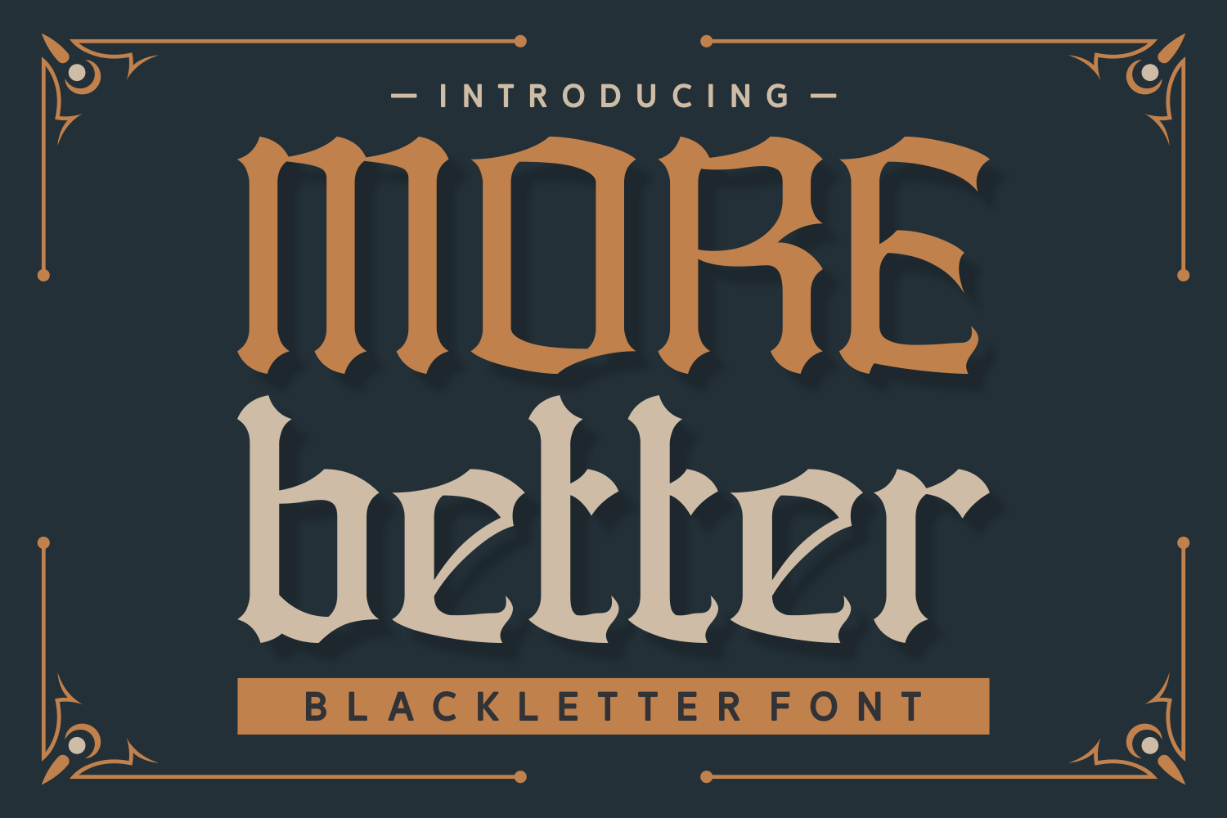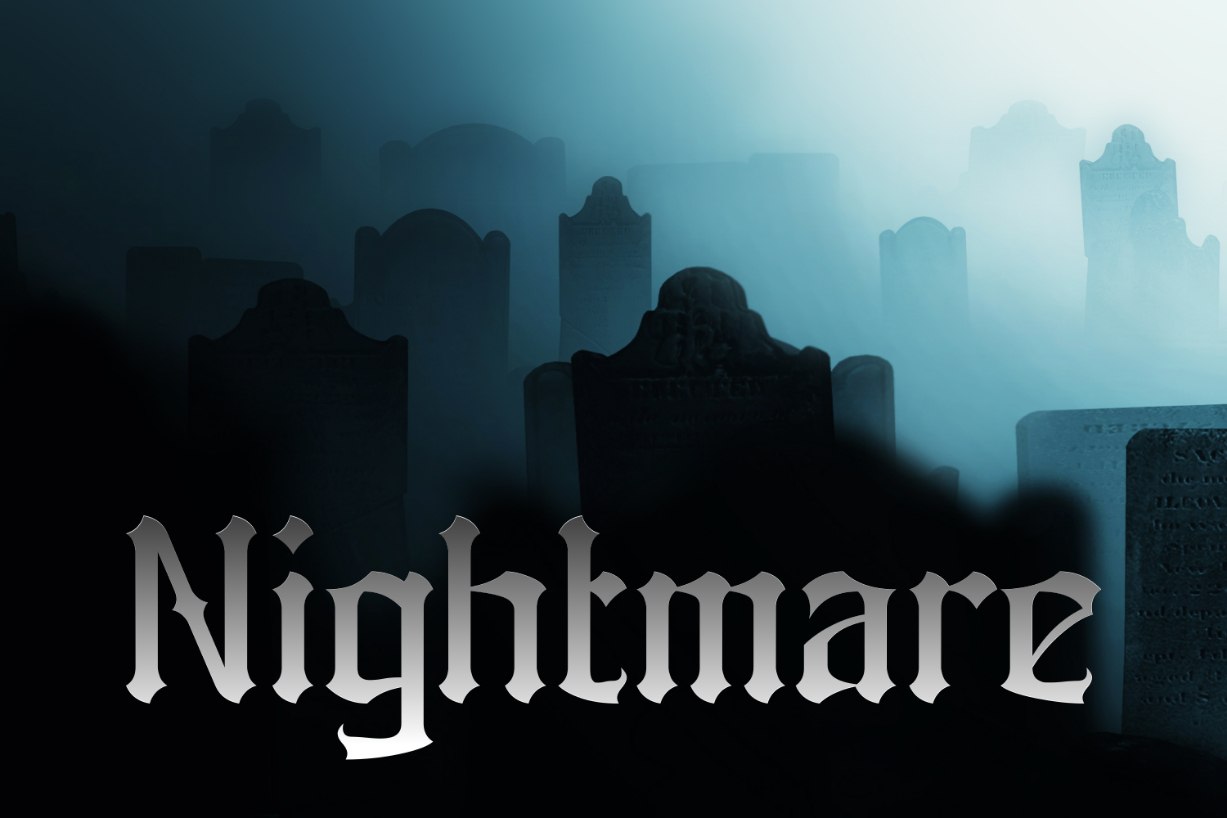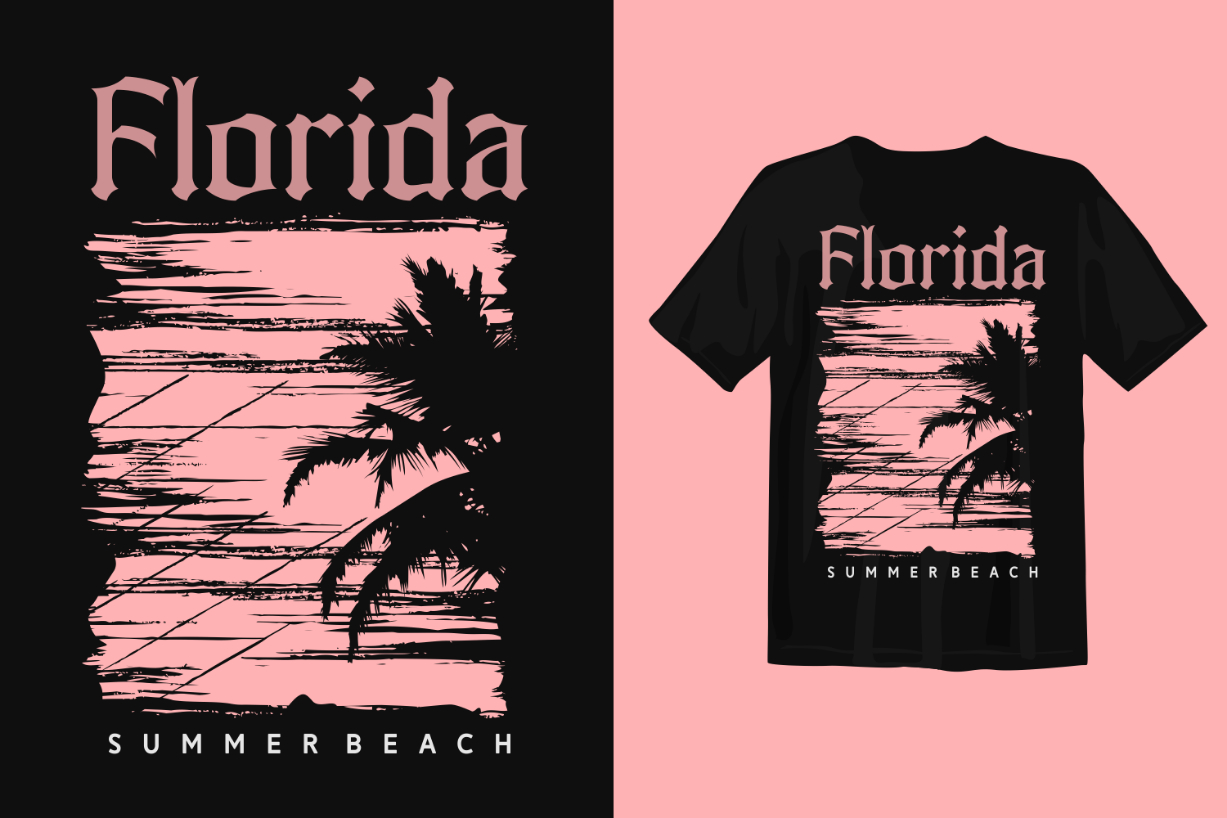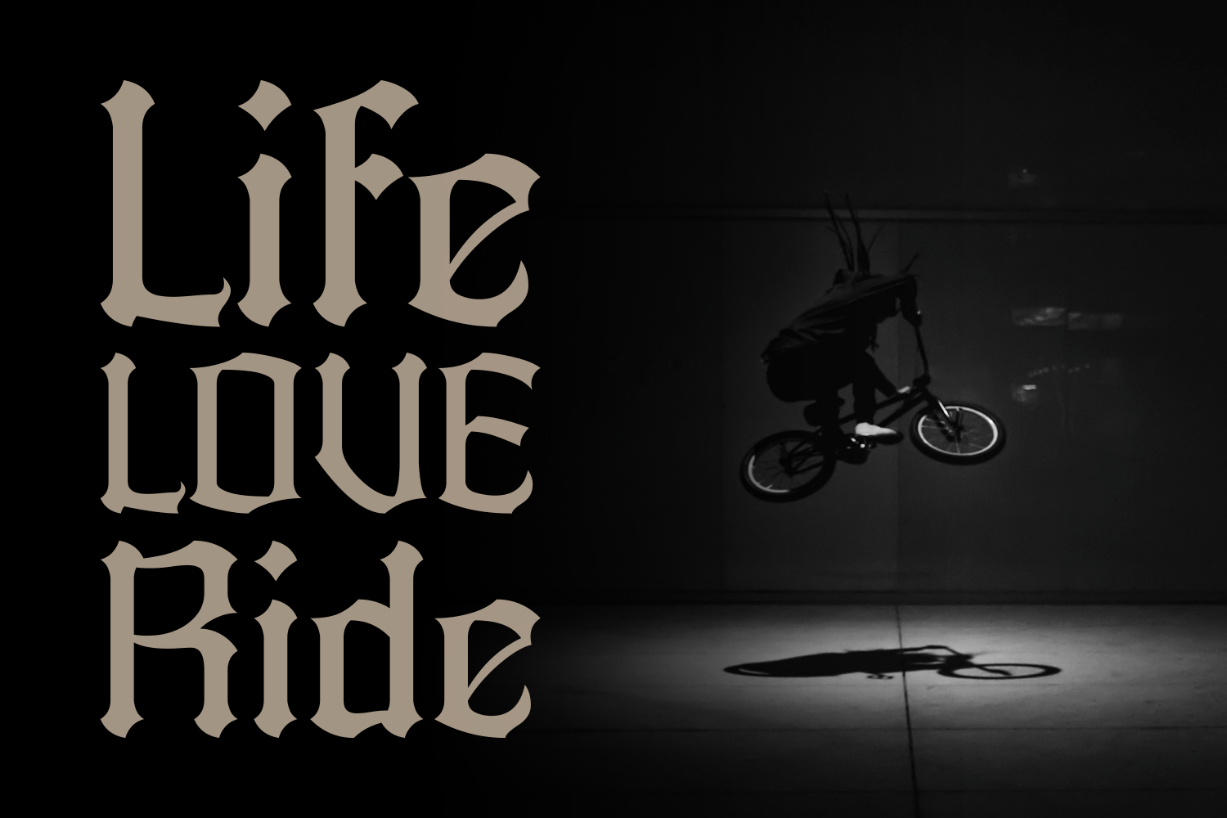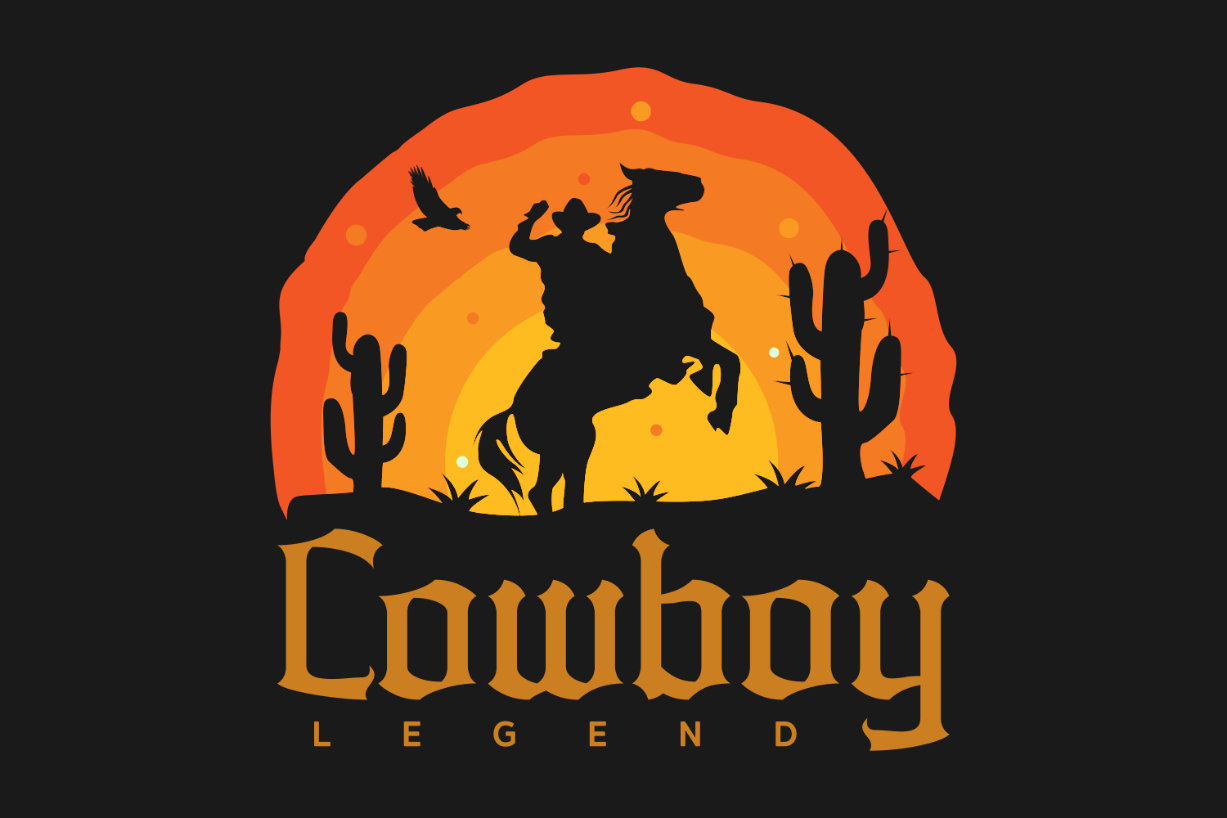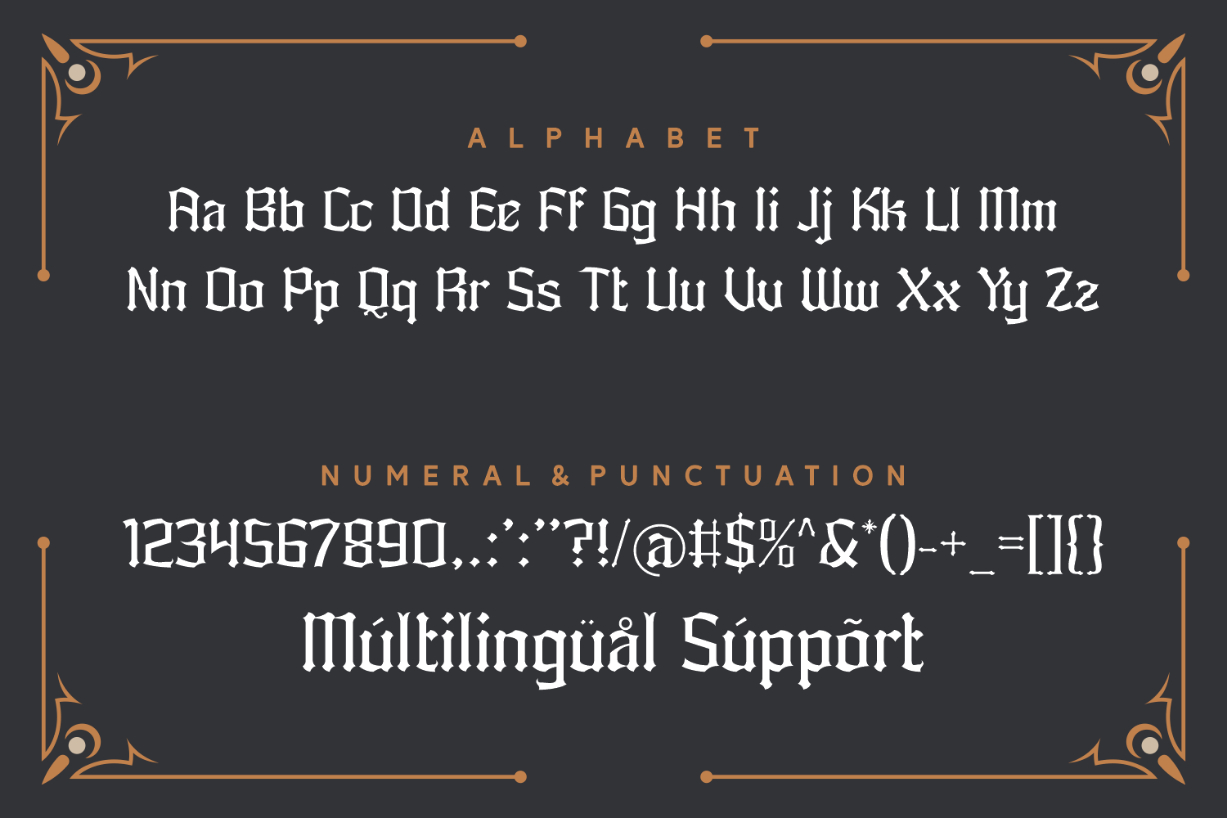
More Better Font
About More Better Font
The More Better font is a classic blackletter style font, bringing a sense of goth and style to your creative projects. It’s range of characters are carefully crafted, and it offers multilingual support.